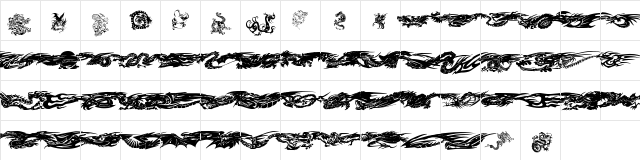
Dragons Tfb Regular
| Designer | kaiserzharkhan |
Design Context for Dragons Tfb Typeface
Dragons Tfb is a composed and adaptable typeface that performs quietly and consistently across a wide range of design contexts.